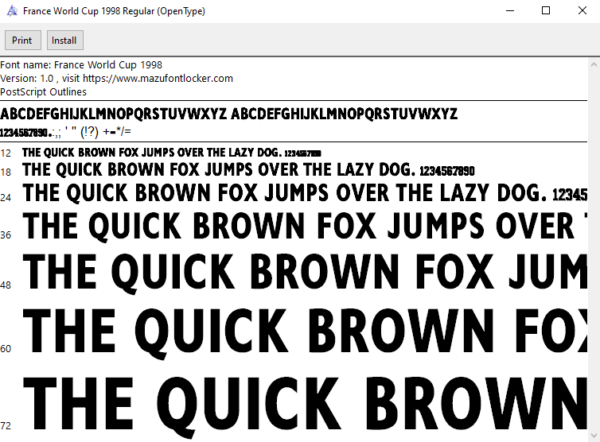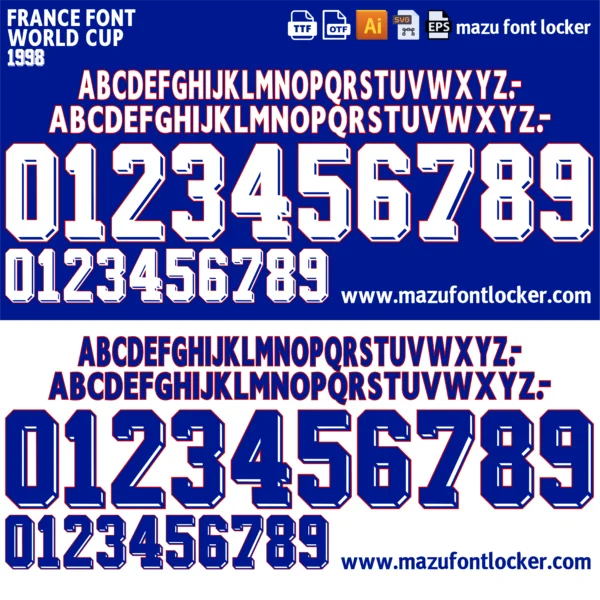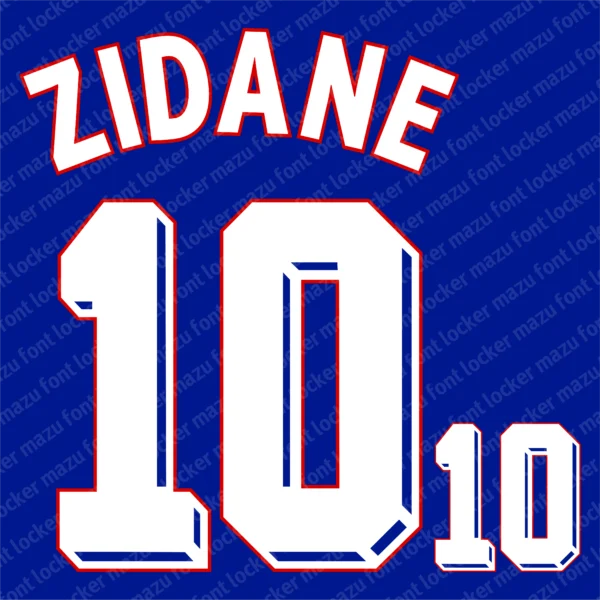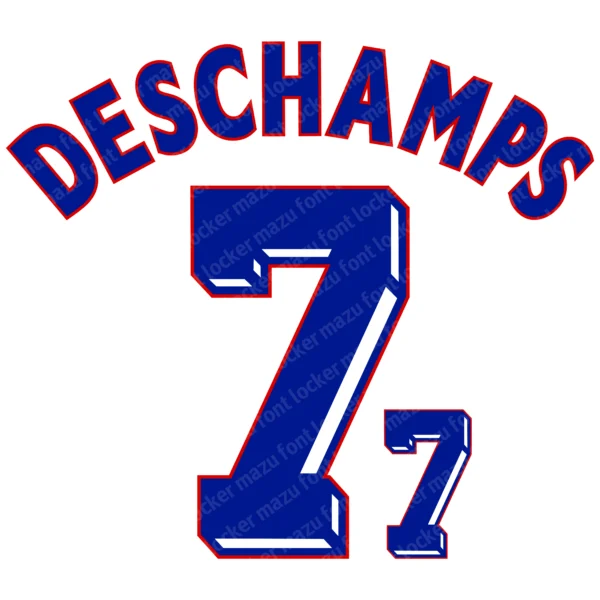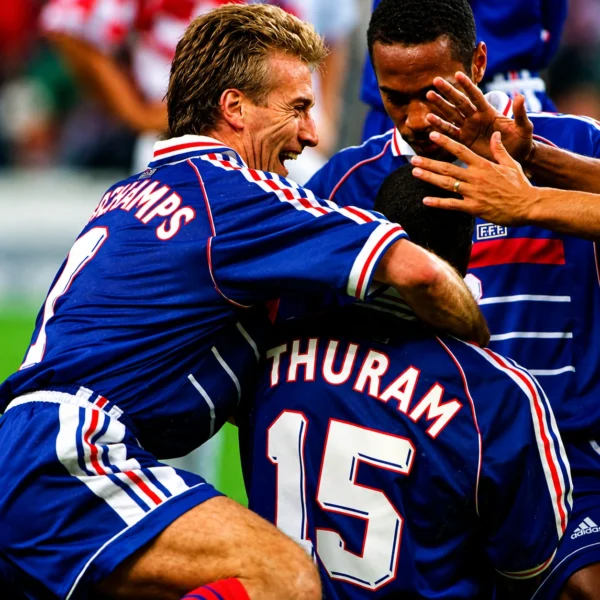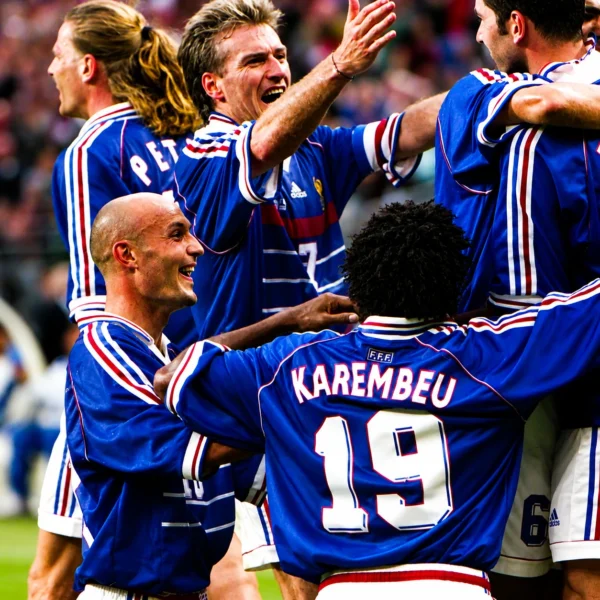
France World Cup 1998 Font Vector – Epic Legendary Les Bleus Masterpiece
The France World Cup 1998 Font powerfully recreates the bold and dynamic match-style lettering worn by the French National Team during their legendary 1998 FIFA World Cup victory. This font captures the elegant yet powerful typography that embodies the passionate blue-white-red Les Bleus spirit, delivering unmatched authenticity for premium jersey mockups and football designs.
France World Cup 1998 Font – Authentic Les Bleus Typeface
The France World Cup 1998 Font is a premium typeface that accurately recreates the official match lettering worn by the France national team during the 1998 FIFA World Cup. This high-quality font kit captures the bold, elegant, and iconic typography from France’s triumphant home World Cup victory.
Designed for professional designers and passionate France fans, the France World Cup 1998 Font delivers perfect authenticity for creating retro jersey mockups, fan merchandise, matchday posters, social media graphics, and much more. It blends beautifully with the team’s iconic blue, white, and red colors.
This font stands out because of its sharp details and strong historical identity. Every letter and number is crafted to match the exact style used on the players’ shirts during the legendary 1998 World Cup. Whether you are making realistic retro shirt templates or nostalgic football content, the France World Cup 1998 Font gives your designs that authentic Les Bleus look.
The letterforms in the France World Cup 1998 Font are tall, bold, and highly readable. The strokes have a strong and controlled weight that looks powerful on the back of jerseys while maintaining excellent clarity and elegance.
The numerals use bold curves and firm edges, giving them a confident and premium appearance. This design ensures great legibility whether used in large print formats, digital mockups, or video content.
• Full uppercase A–Z and numbers 0–9 in authentic France 1998 style
• Special France FFF crest glyph for accurate shirt number detailing
France in the 1998 World Cup